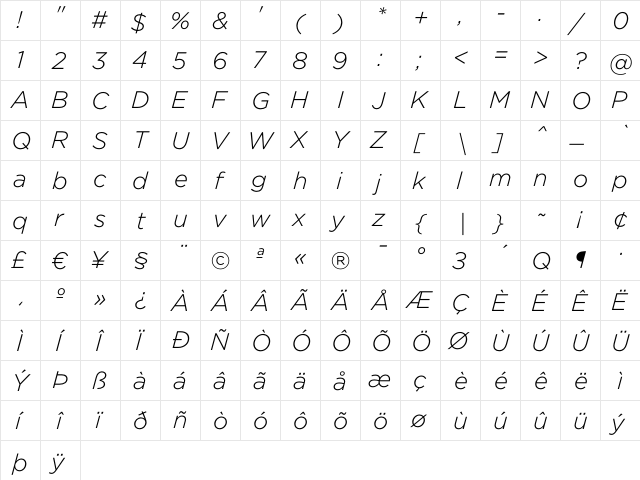
Gotham Italic
Design Context for Gotham Typeface
Gotham takes a measured approach to typography — its balanced proportions and neutral character make it a reliable workhorse for both digital and print work. The dynamic lean of this cut emphasises speed and emphasis in any layout.
Pro Tip: Use Gotham for emphasis, pull quotes, and subheadings where its slanted energy can add rhythm to the layout.